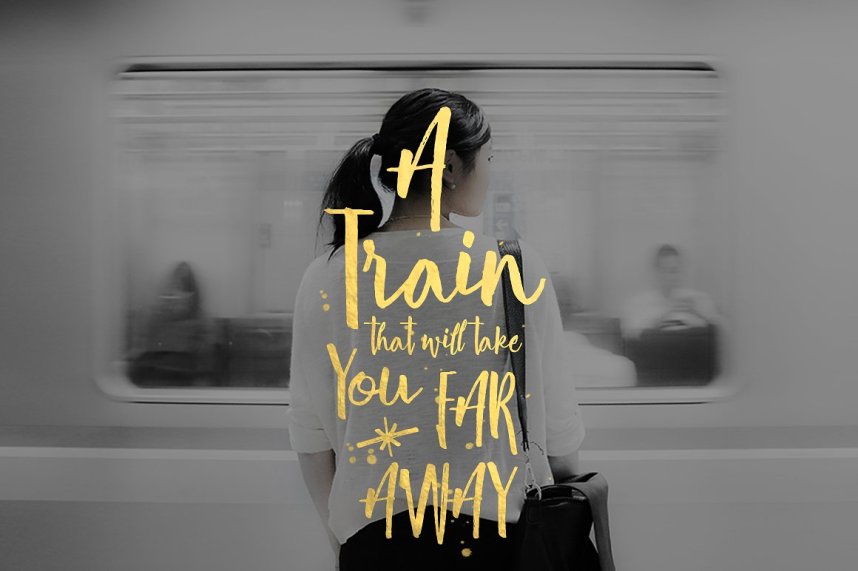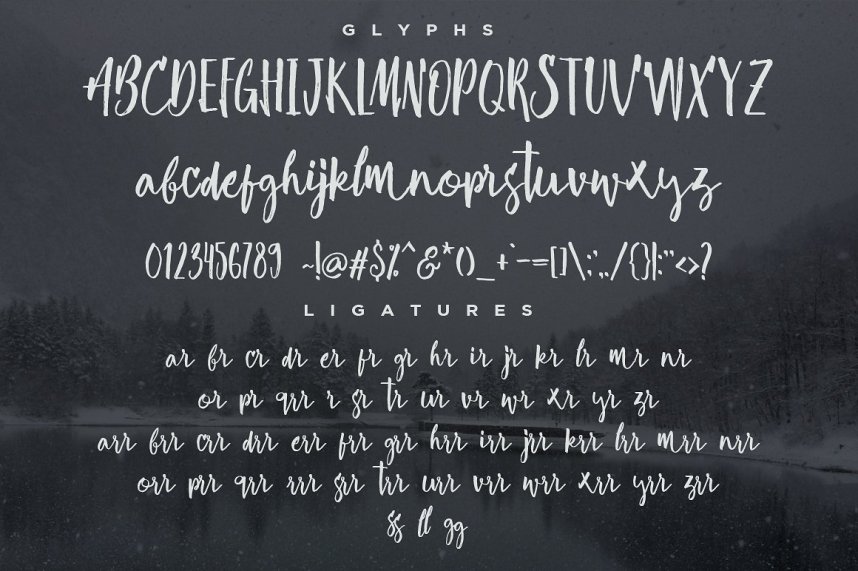
Risoless Script Font
Introducing Risoless Script Font! Risoless Script designed by Konstantine Studio, this is a premium font, are sold on creativemarket, but it was great, it is free today for download. The Risoless Script based on a kids script handwriting flow and translated it into a typeface with keeping the honesty and cuteness on every stroke of a kids on it. Comes with Uppercase, Lowercase, Numbers and Punctuations, Support English standard keyboard language.